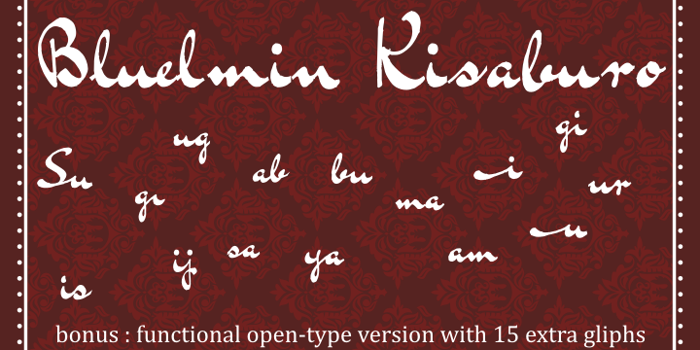
Bluelmin Kisaburo Font
ABOUT THIS FONT - BLUELMIN KISABURO
Charles Bluemlein was a penmanship and calligrapher, best known for producing a series of script alphabets for the Higgins Ink Company of Brooklyn, New York. These scripts were published in Script and
Manuscript Lettering in the forties. Bluemlein was one of the last members of the rich tradition of the golden era of the north-american penmanship. With this fonts and your sisters fonts, we will try to pay
a tribute to his art, in a free interpretation of his scripts. Despite the original name Bluemlein I decide use a different one to named this series of fonts, Bluelmin. THE OPEN TYPE VERSION HAS A BONUS :
FIFTEEN extra gliphs acessible using the open type features device in the mostly of the softwares.